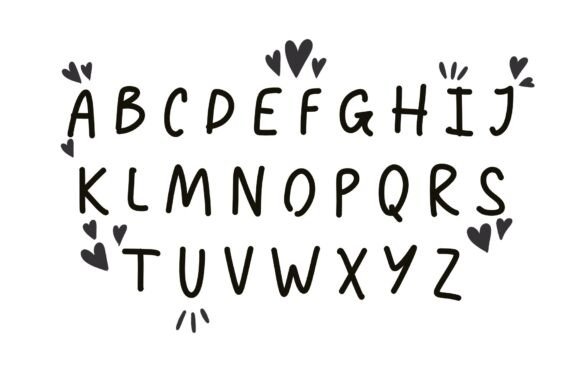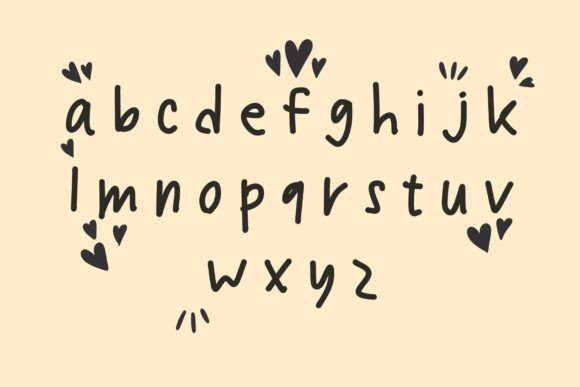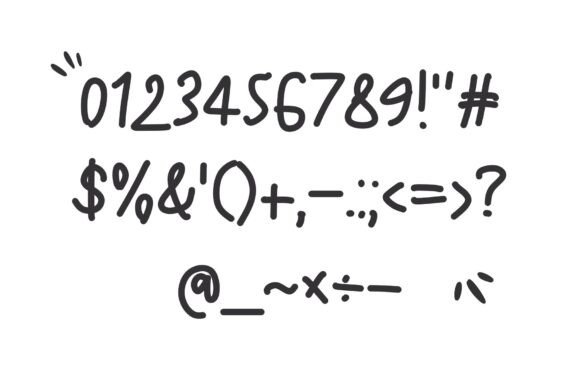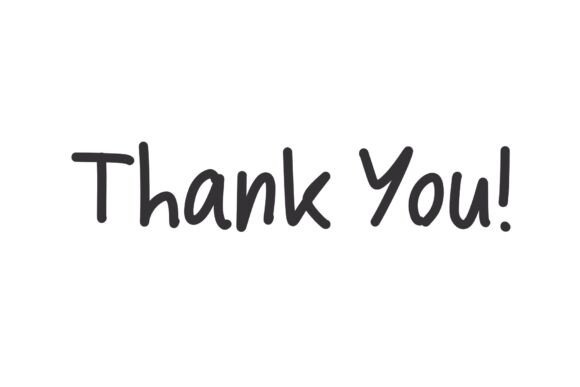
Unleashing the Sweet Charm of Spring in Your Designs
As you sit down to brainstorm new ideas for your next creative project, do you ever get that sudden urge to capture the essence of spring in your designs? Maybe it’s the way the sunlight filters through the blooming flowers, or the sweet scent of fresh berries wafting through the air. Whatever it is, we’re about to make that feeling a reality with the Berrybloom Font.
With its playful loops and petal-soft curves, the Berrybloom Font brings a burst of charm to your designs, making it perfect for pastel-themed branding, dreamy quotes, planner pages, or anything that needs a sprinkle of joy. This lovely font is a must-have for designers who want to add a touch of whimsy and personality to their work.
Berrybloom Font Key Features
- Font Family: Berrybloom Font is a sans-serif font family with a unique, hand-drawn feel.
- Resolution: Optimized for use at high resolutions, making it suitable for both print and digital applications.
- Unique Characteristics: Features a distinctive, playful feel with a mix of rounded and angular shapes, making it perfect for creative and whimsical designs.
Berrybloom Font Review
Overall, I was quite impressed with the Berrybloom Font when I first started using it in my design projects. The font has a ✨ playful, whimsical feel to it that instantly grabs the user’s attention. The script style is well-suited for titles, headings, and other prominent text elements, making it a great choice for creative projects.
One of the things I love about Berrybloom is its versatility. It comes in a variety of styles and weights, making it easy to find the perfect match for your design needs. The font also supports a wide range of languages, which is a major plus for designers working on international projects.
While Berrybloom is a great font, it’s not perfect. One of the main limitations I’ve noticed is that it can be a bit ✨ overwhelming to read in large blocks of text. The script style can be tiring to look at if used excessively, so be sure to use it sparingly in your designs.
What I Like
- ✨ Unique and playful style that grabs attention
- ✨ Versatile and comes in a variety of styles and weights
- ✨ Supports a wide range of languages
What I Don’t Like
- ⚠️ Can be overwhelming to read in large blocks of text
- ⚠️ May not be suitable for body text or large amounts of content
Tips for Getting the Most Out of Berrybloom Font
Use Berrybloom Font to add a touch of whimsy and playfulness to your designs. Pair it with bold colors and creative graphics for a visually appealing effect. Experiment with different font sizes and combinations to create a unique look.
Berrybloom Font is ideal for:
– Children’s book illustrations and designs
– Branding and marketing materials with a playful tone